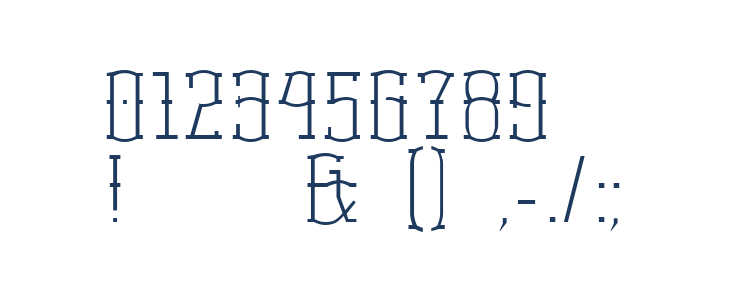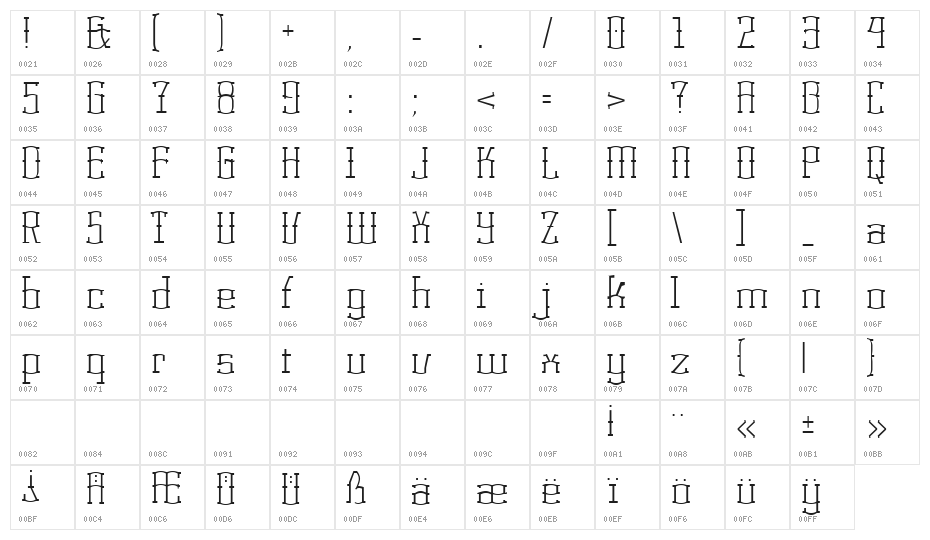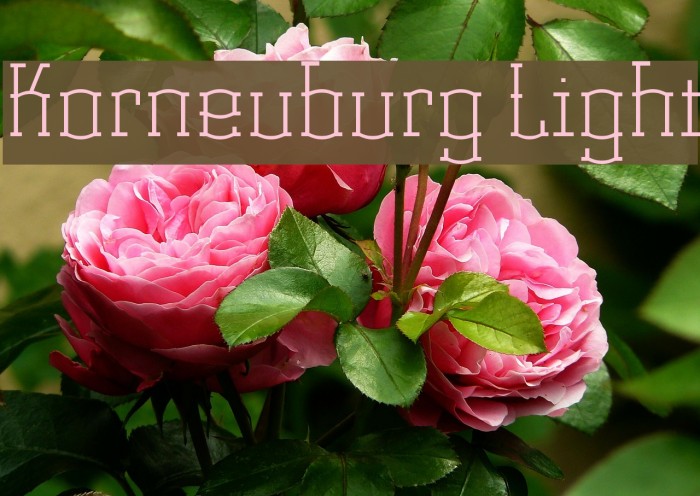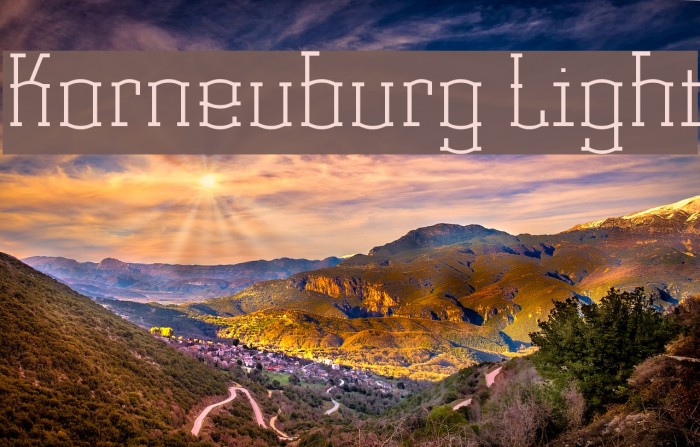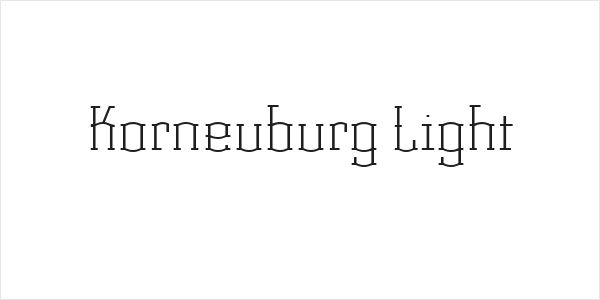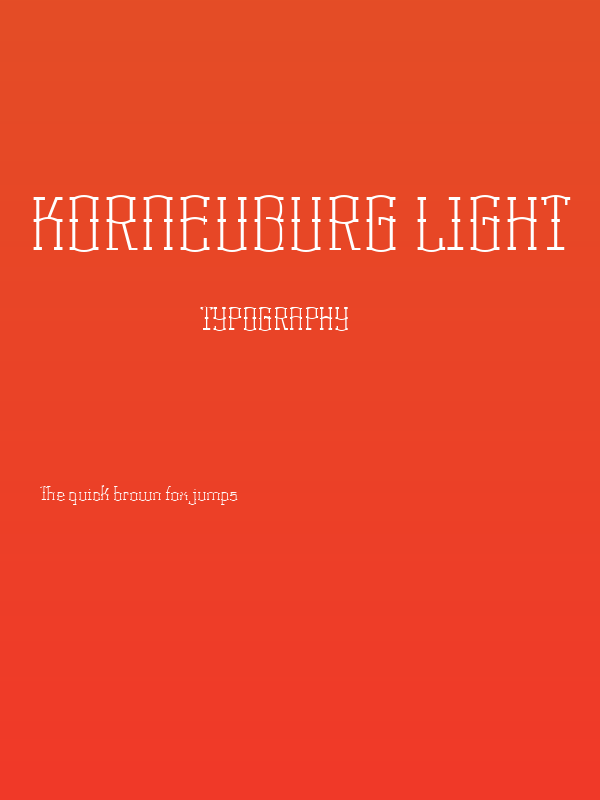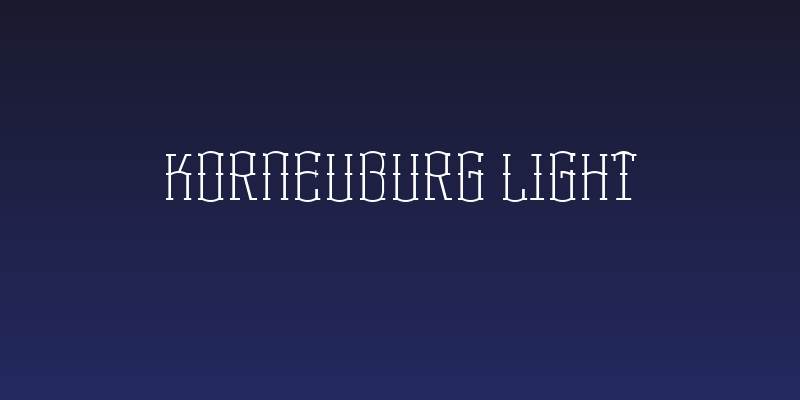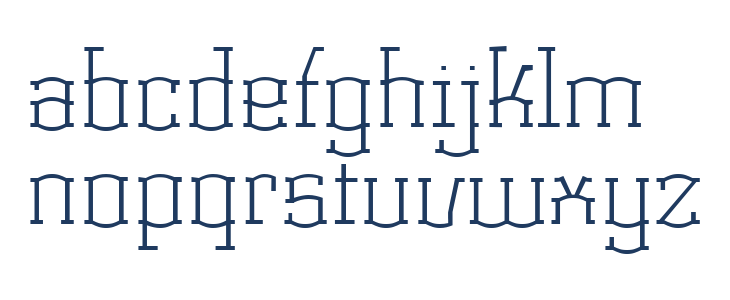
Korneuburg Light Font
Korneuburg Light Description
This font features a distinct and modern design with a geometric and structured appearance. The characters are tall and narrow, with a consistent stroke width that gives it a clean and uniform look. The uppercase letters have a unique architectural feel, with sharp angles and straight lines, while the lowercase letters maintain a similar style but with a slightly softer touch. The numerals are equally structured, providing a cohesive look across all characters. Special characters are designed to match the overall aesthetic, making this font suitable for a variety of design applications.
| Use Case | Headlines, Logos, Digital interfaces |
| Proposed Projects | Ideal for architectural designs, modern branding, editorial layouts, and digital interfaces. |